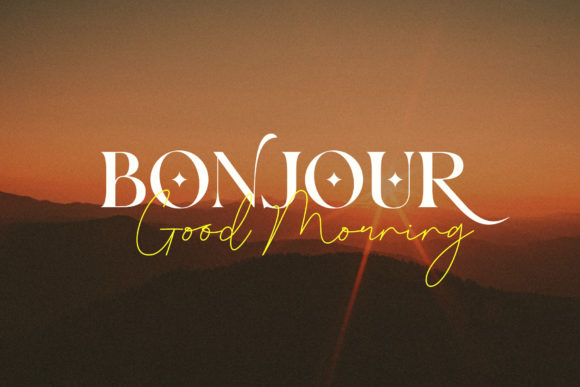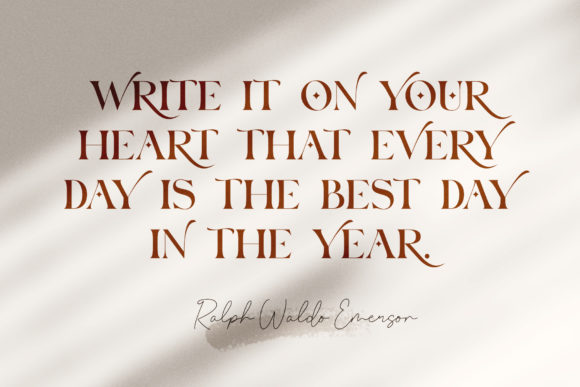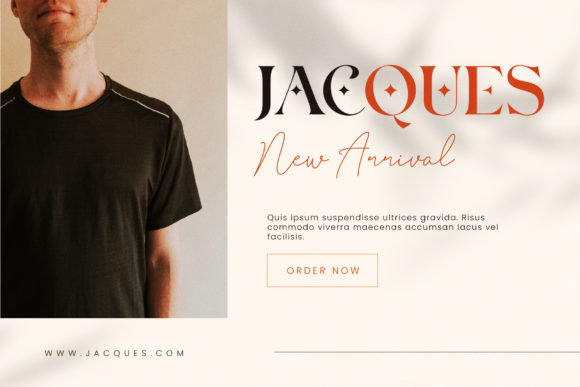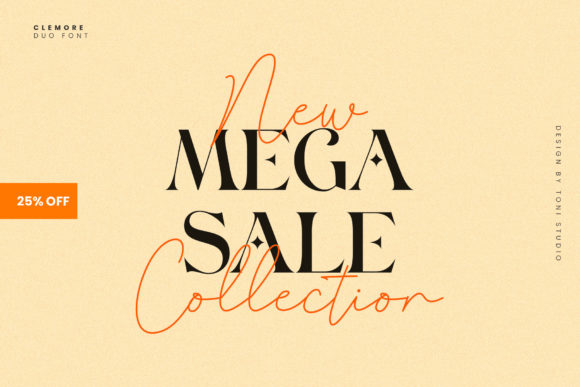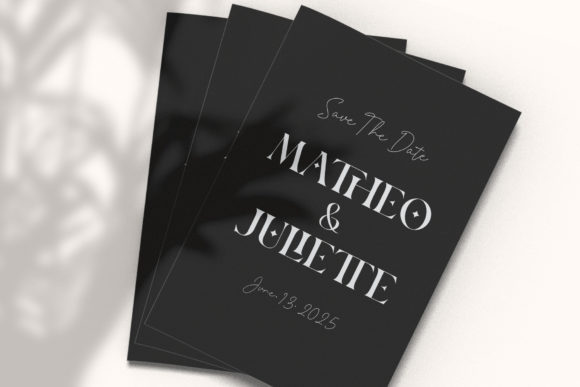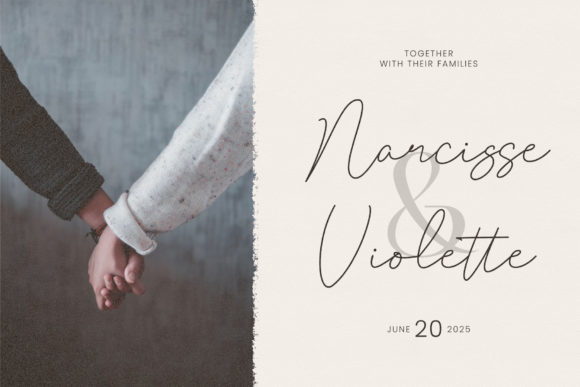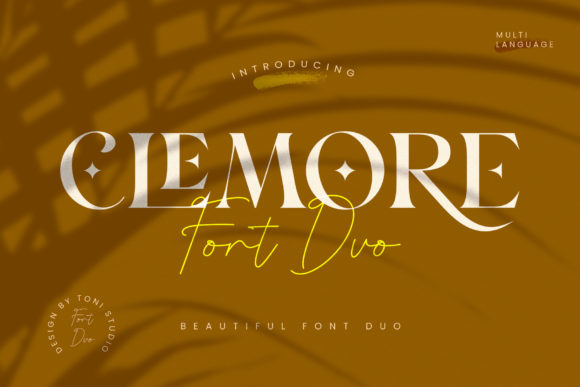
Clemore Duo Font: Elevate Your Designs with Elegance and Sophistication
In the world of typography, fonts play a crucial role in conveying the tone and personality of a design. For designers and crafters seeking a modern and elegant duo font, Clemore Duo is an exceptional choice. This versatile font combines a serif and script font, offering a unique blend of sophistication and charm. In this article, we’ll explore the features and benefits of Clemore Duo, and how it can elevate your designs to new heights.
A Modern and Elegant Duo Font
Clemore Duo is a thoughtfully crafted font that boasts clean lines and smooth curves, making it perfect for a wide range of design applications. The serif font exudes professionalism and stability, while the script font adds a touch of elegance and whimsy. This duo font is ideal for designers who want to create visually stunning designs that convey a sense of sophistication and refinement.
Clemore Duo’s versatility makes it an excellent choice for various design projects, including:
- Logos: Create a lasting impression with a custom logo that showcases your brand’s personality and values.
- Wedding Designs: Add a touch of romance and elegance to your wedding invitations, stationery, and decorations.
- Quotes: Make your quotes stand out with a beautiful and eye-catching font that adds emphasis to your message.
- Display Text: Use Clemore Duo to create stunning display text for posters, flyers, and other marketing materials.
One of the standout features of Clemore Duo is its PUA (Private Use Area) encoding. This means that you can access all glyphs and swashes with ease, giving you greater creative control over your designs. With PUA encoding, you can:
- Access a wide range of glyphs and swashes to add unique touches to your designs.
- Easily swap and combine glyphs to create custom text.
- Save time and effort by having all the tools you need at your fingertips.
Clemore Duo offers numerous benefits for designers and crafters, including:
- Time-Saving: With a wide range of glyphs and swashes at your disposal, you can save time and effort in creating custom designs.
- Creative Freedom: Clemore Duo’s PUA encoding gives you the creative freedom to experiment with different glyph combinations and create unique designs.
- Professional Results: With Clemore Duo, you can achieve professional-looking results that rival those created by experienced designers.
In conclusion, Clemore Duo is an exceptional font duo that offers a perfect blend of modernity, elegance, and sophistication. Its versatility, PUA encoding, and range of glyphs and swashes make it an ideal choice for designers and crafters seeking to elevate their designs. Whether you’re creating logos, wedding designs, quotes, or display text, Clemore Duo is sure to become a go-to font in your design arsenal.